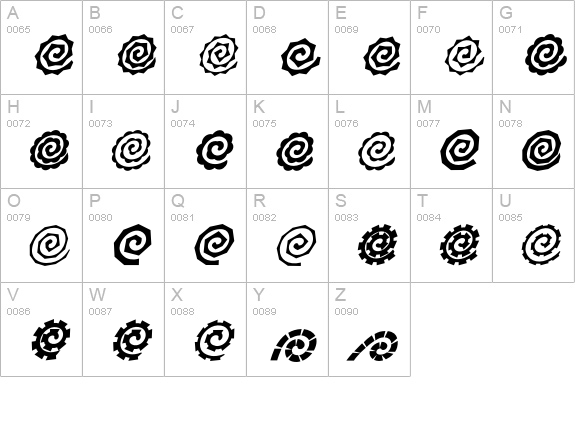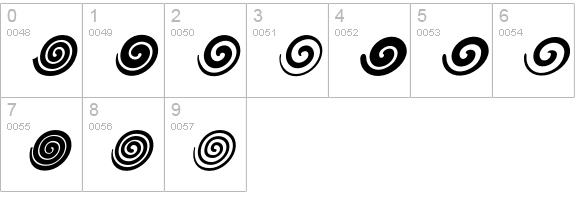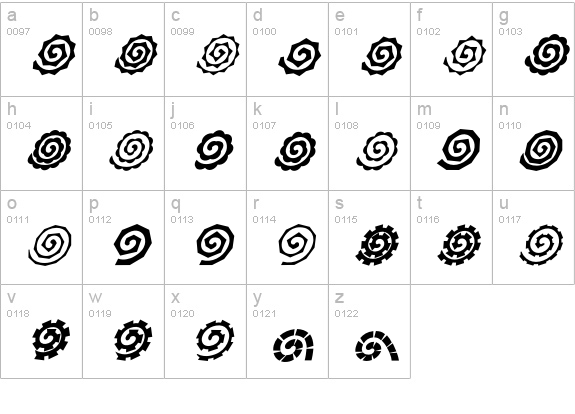
AltemusSpiralsBoldItalic Font Details
AltemusSpiralsBoldItalic is a striking and elegant font that exudes a sense of sophistication and modernity. With its bold and italicized style, this typeface is perfect for making a bold statement in any design project. The unique spiral detailing adds a touch of creativity and flair, making it stand out from the crowd. Not only does AltemusSpiralsBoldItalic offer a visually stunning aesthetic, but it also provides excellent readability and versatility, making it suitable for a wide range of applications. Whether you're designing a logo, poster, website, or any other creative project, this font will add a touch of class and style. Best of all, AltemusSpiralsBoldItalic is available for free download at FontsMarket.com, allowing you to easily access this high-quality font and incorporate it into your designs without any cost. Don't miss out on this fantastic opportunity to enhance your projects with the beauty and sophistication of AltemusSpiralsBoldItalic.